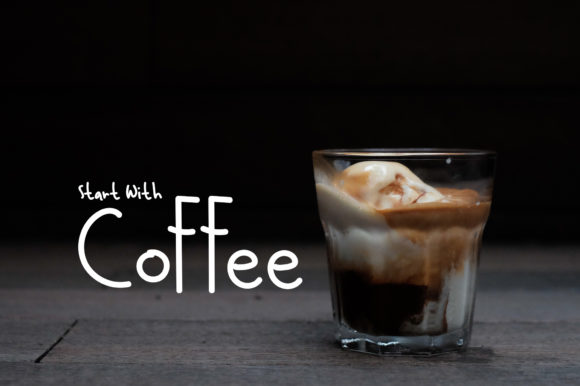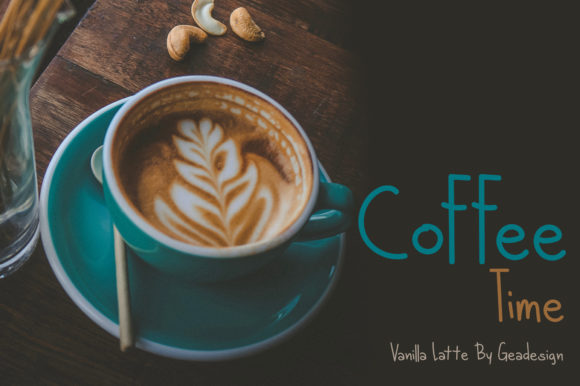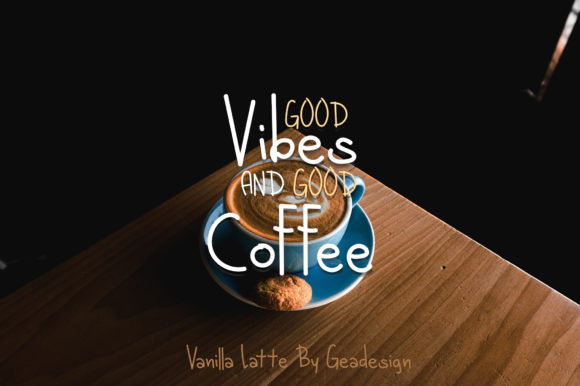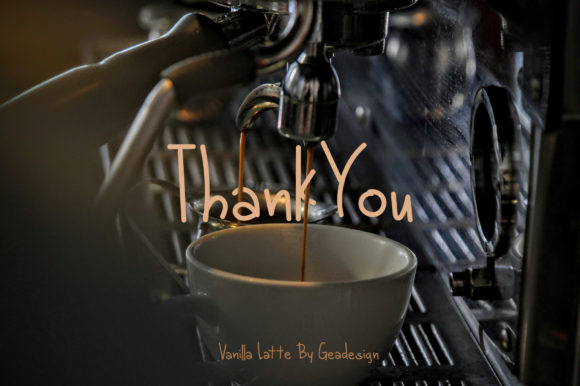
Vanilla Latte Font
About Vanilla Latte Font
Vanilla Latte is a simple, yet delicious handwritten font with a cute charm. It will turn any design idea into an eye catcher!